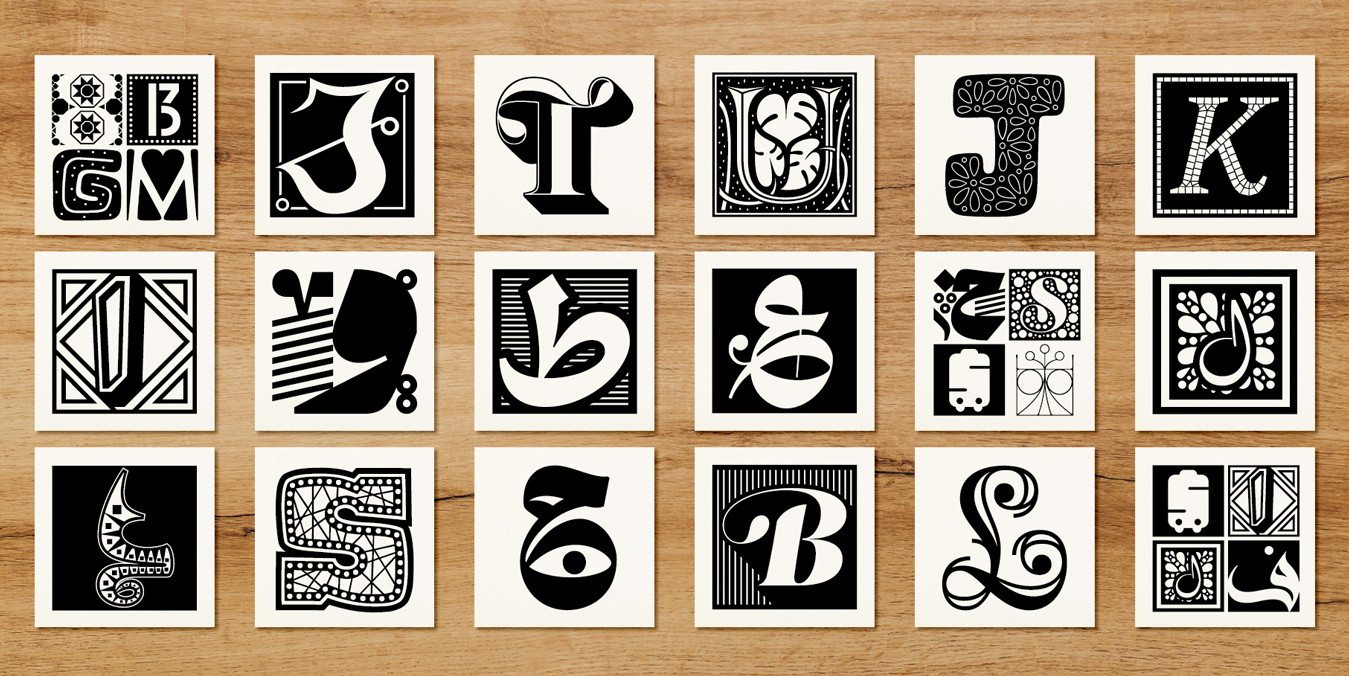
Li Beirut
The blast that rocked Beirut on Aug 4, 2020 resulted in more than 200 fatalities, 6000 injuries, with more than 300,000 people left homeless. To show solidarity with the people of Beirut, the international type design community came together to create a typeface that would raise funds to support the victims of the blast. All proceeds go to charity.